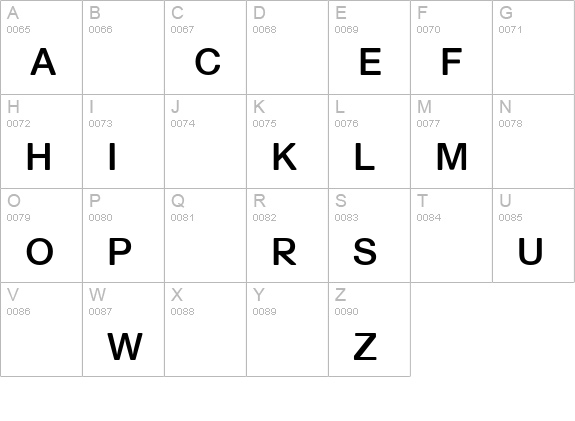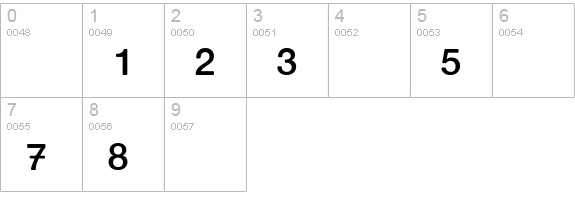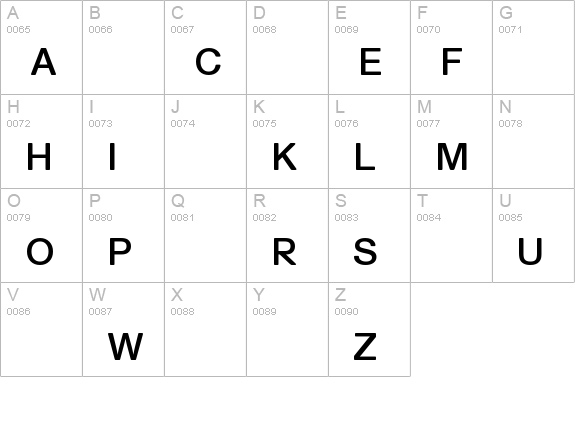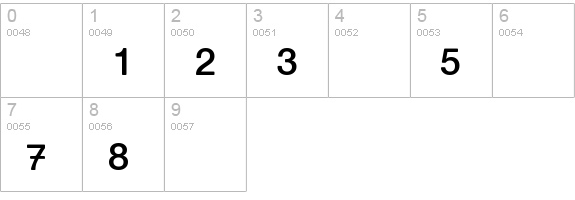
Norddruck Font Details
Norddruck font is a modern and elegant typeface that exudes sophistication and professionalism. Its sleek lines and sharp angles make it perfect for a wide range of design projects, from branding to editorial layouts. The unique combination of classic and contemporary elements gives Norddruck font a timeless appeal that will elevate any design it is used in. One of the best things about Norddruck font is that it is completely free to download. You can easily access this stunning typeface at FontsMarket.com and start using it in your projects right away. Whether you are a seasoned designer looking for a fresh new font or a beginner looking to add some style to your work, Norddruck font is sure to impress with its versatility and beauty. Don't miss out on this fantastic opportunity to enhance your designs with Norddruck font today!